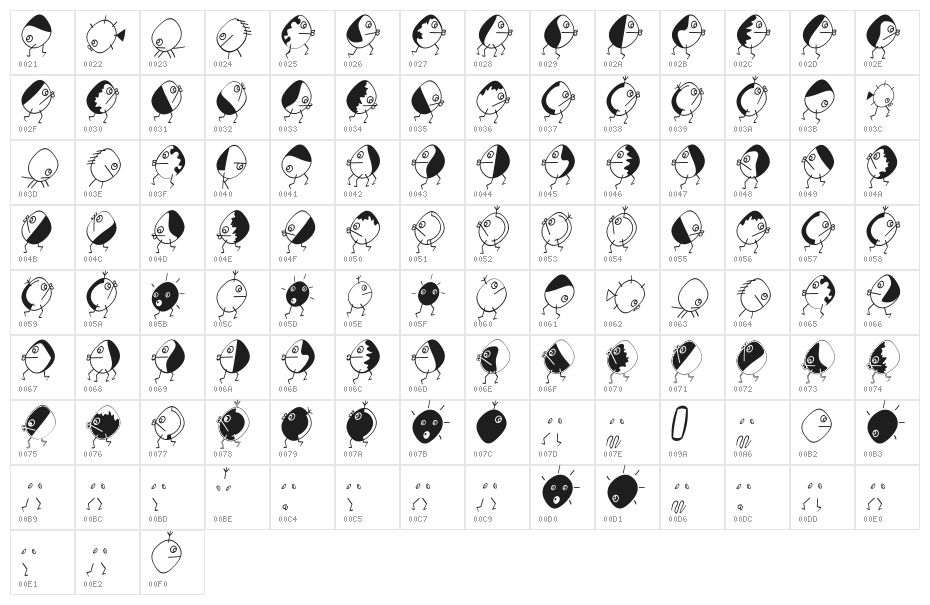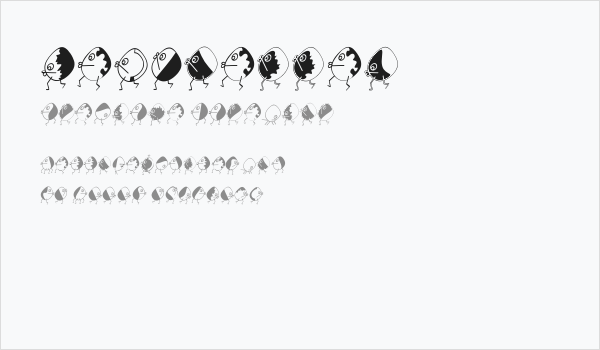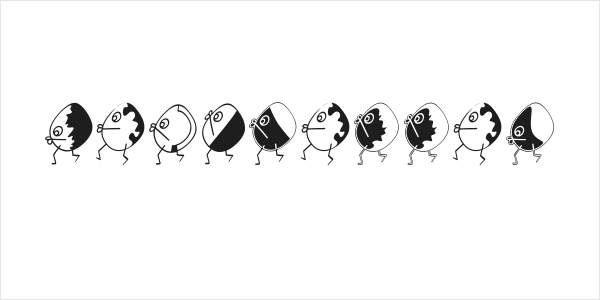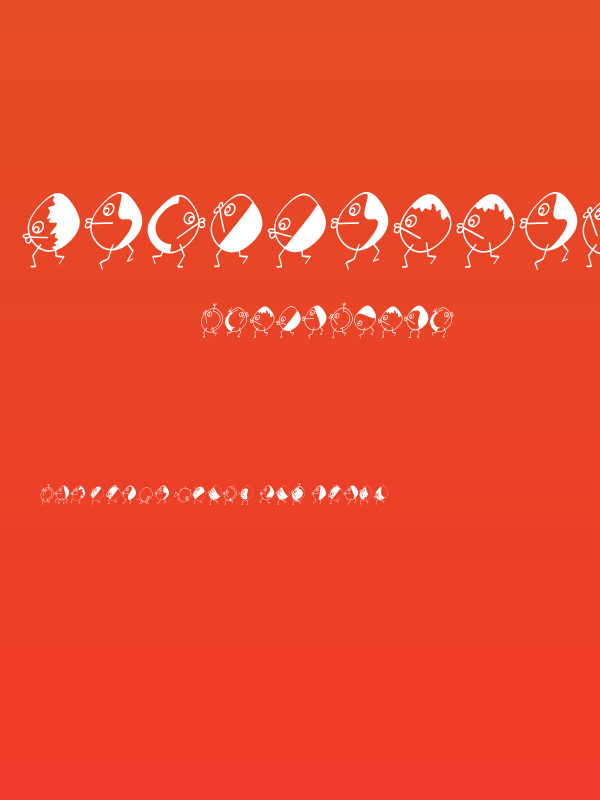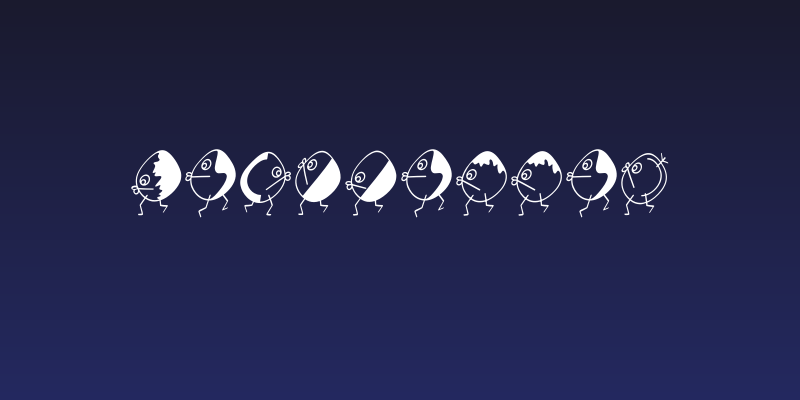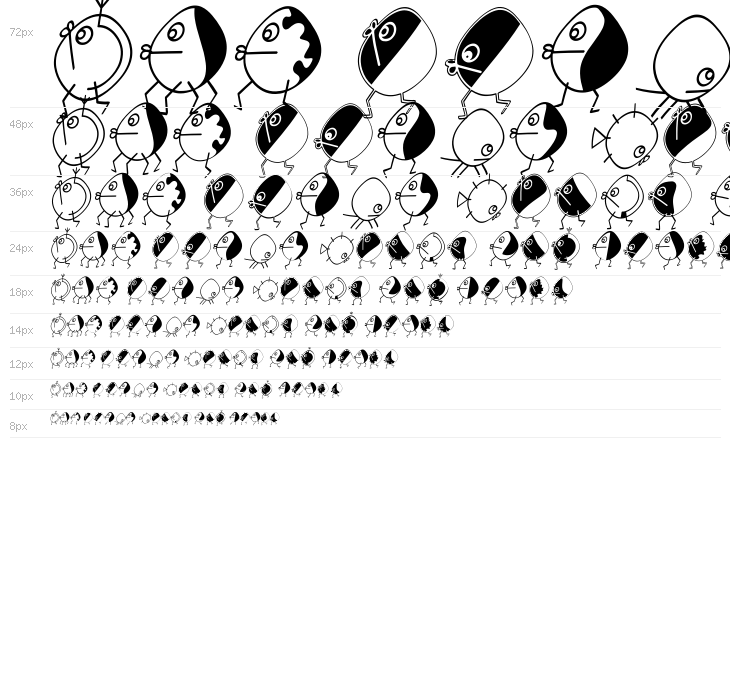
NewKoeppes Font
NewKoeppes Description
NEWKOEPPES UPPERCASE
NEWKOEPPES LOWERCASE
NEWKOEPPES OTHER CHARS
| Overall Style | Decorative, Whimsical, Playful |
| Use Case | Logos, Headlines, Posters, ChildrenΓ’β¬β’s content |
| Proposed Projects | ChildrenΓ’β¬β’s books, playful branding, greeting cards, posters, educational materials. |